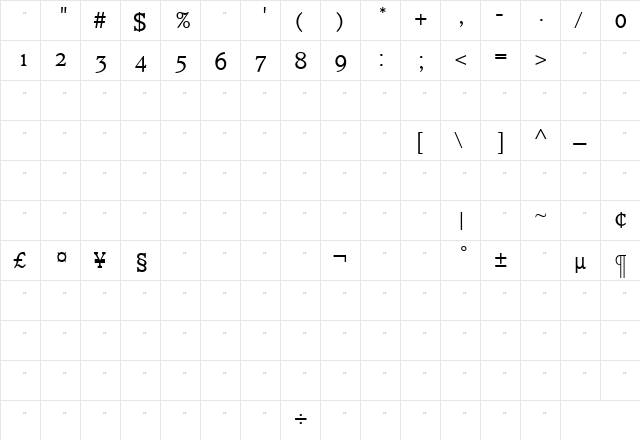
ClaremontLtOSTab Roman
Design Context for ClaremontLtOSTab Typeface
ClaremontLtOSTab takes a measured approach to typography — its balanced proportions and neutral character make it a reliable workhorse for both digital and print work.